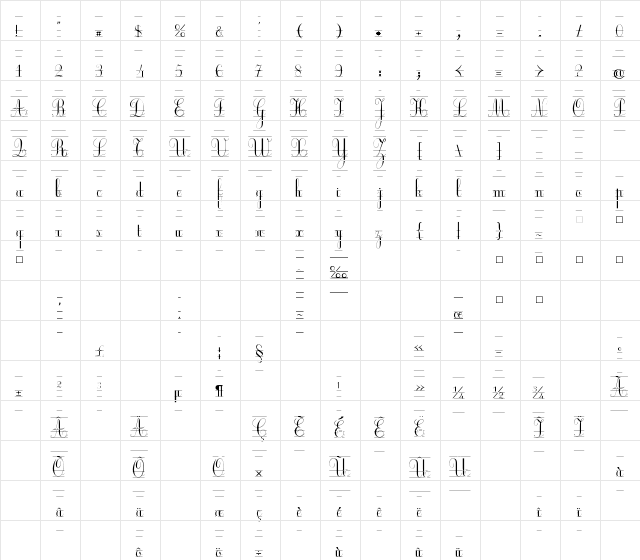
Ecolier_CP Regular
Design Context for Ecolier_CP Typeface
Ecolier_CP takes a measured approach to typography — its balanced proportions and neutral character make it a reliable workhorse for both digital and print work.